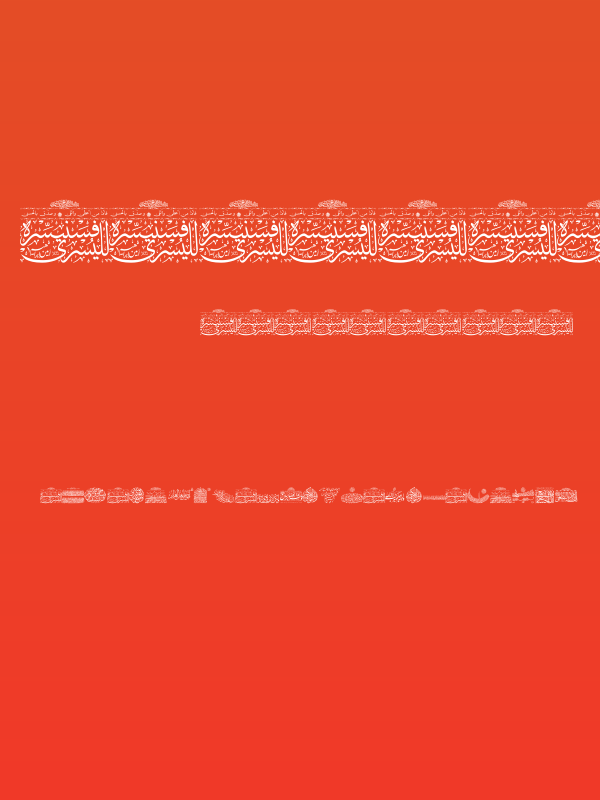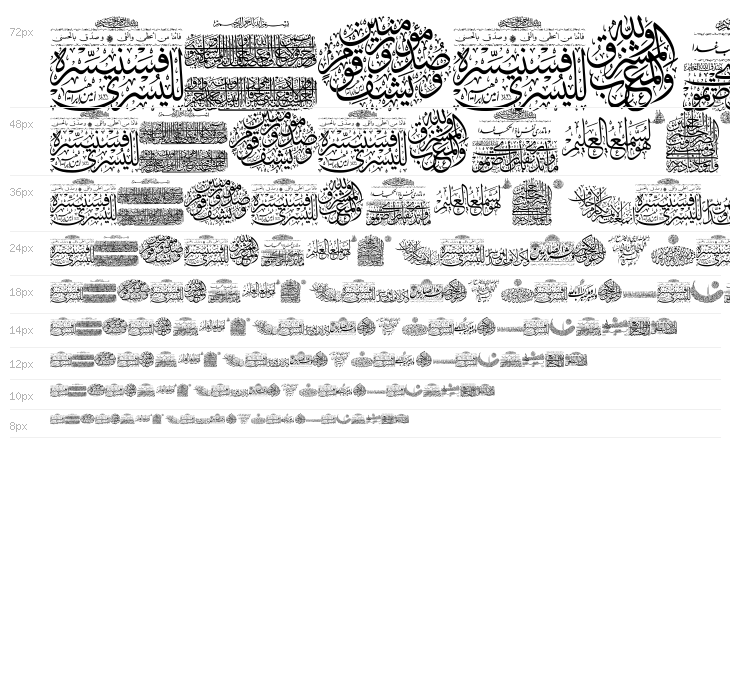
Aayat Quraan_045 Font
Aayat Quraan_045 Description
Highly ornate Arabic script with intricate decorative elements, featuring dense calligraphic strokes and elaborate flourishes, often used in religious or ceremonial contexts. The glyphs are tightly packed, with significant embellishments and a strong sense of tradition.
| Overall Style | Decorative, Traditional, Religious |
| Use Case | Decorative headings, religious texts, ceremonial documents, art pieces. |
| Proposed Projects | Religious manuscripts, ceremonial documents, decorative borders, Islamic art, Quranic verses, certificates. |